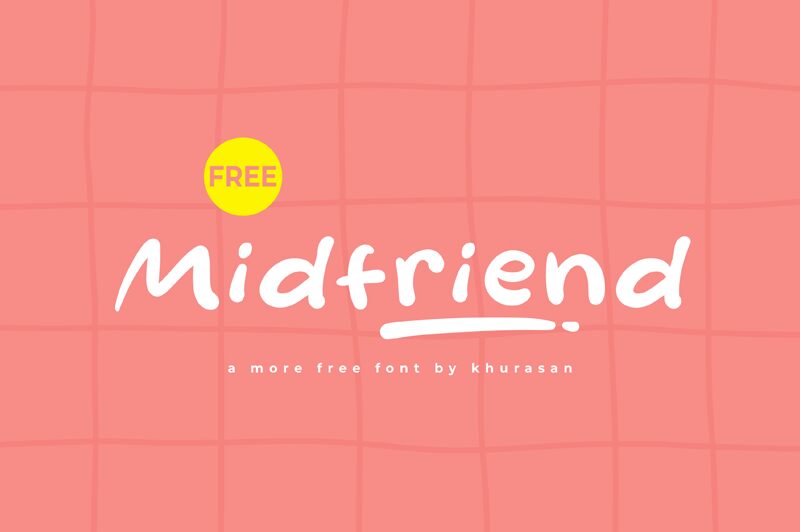
Midfriend font family is a free font set with playful cartoon elements that are both approachable and modern. Designed by Khurasan, this font has a friendly style that exudes cheerfulness and informality. Its rounded appearance is perfect for those seeking a casual and soft look that doesn’t compromise on personality.
Typical usage could include book covers, book pages, comics, magazines, television, movie covers, animations, children-oriented materials, websites, advertisements, and social media.